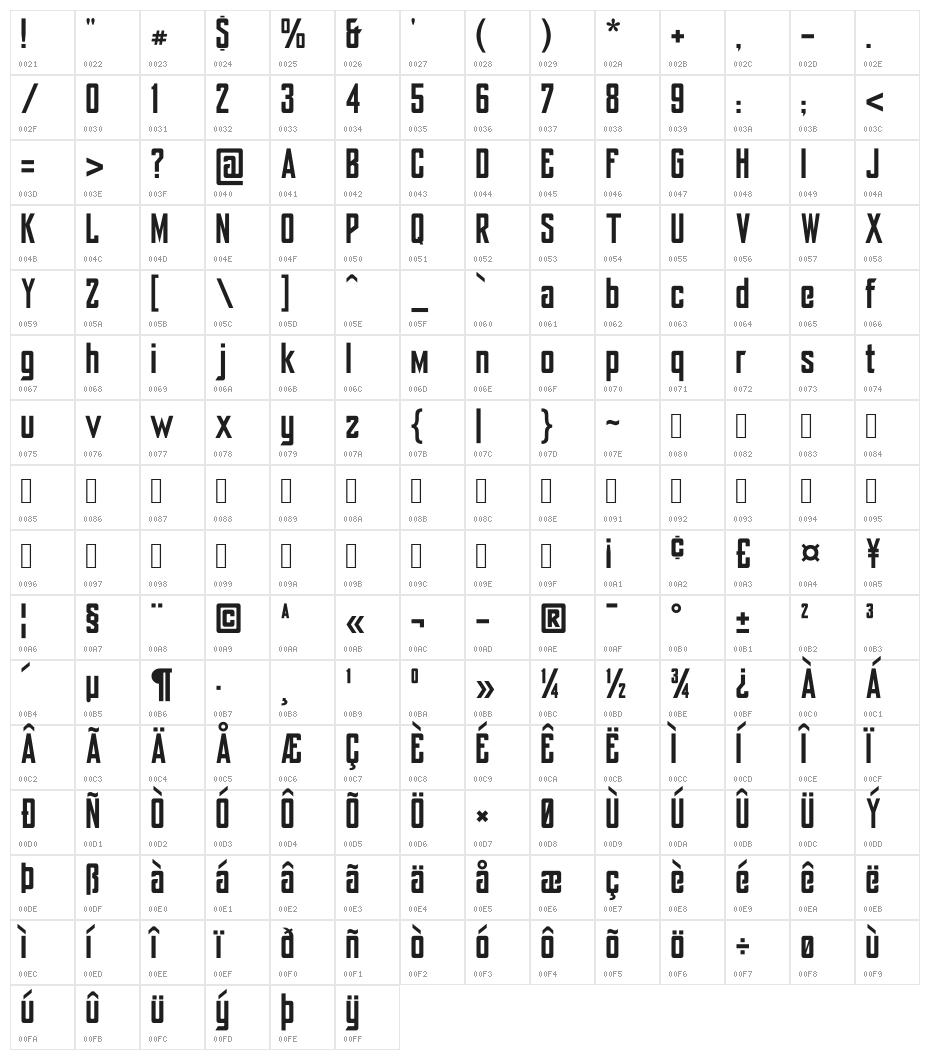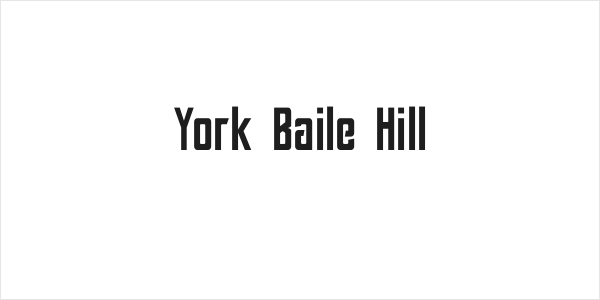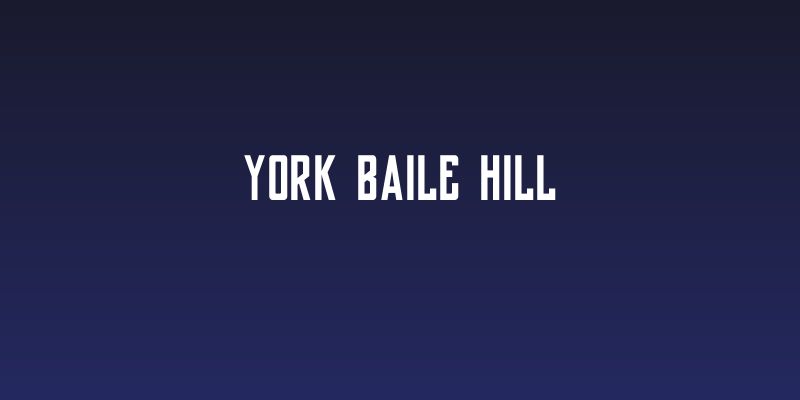
York Baile Hill Font
York Baile Hill Description
This font features a bold and robust design, characterized by its strong geometric shapes and uniform stroke width. The uppercase letters are tall and commanding, while the lowercase letters maintain a consistent style that complements the uppercase. The numbers are clear and legible, making them suitable for various applications. Special characters are designed with the same boldness, ensuring a cohesive look across all glyphs. The overall appearance is modern and impactful, making it ideal for attention-grabbing designs.
| Proposed Projects | Ideal for posters, headlines, branding, and any project requiring a strong visual impact. |